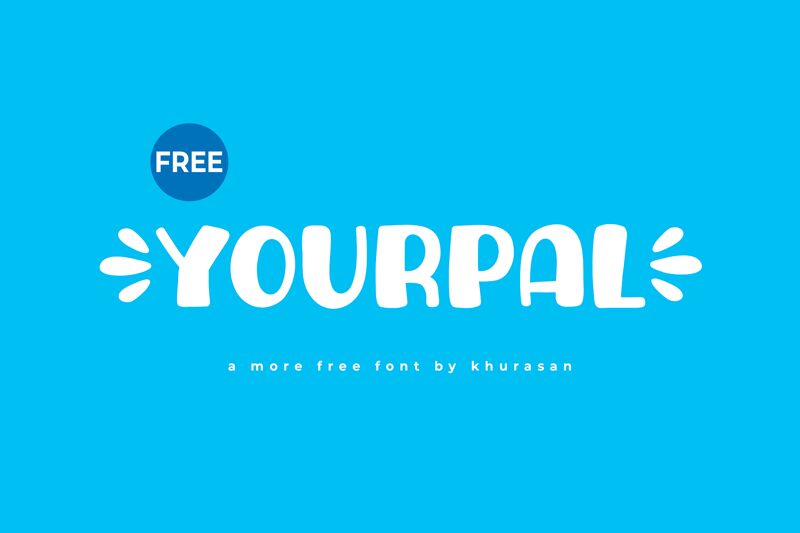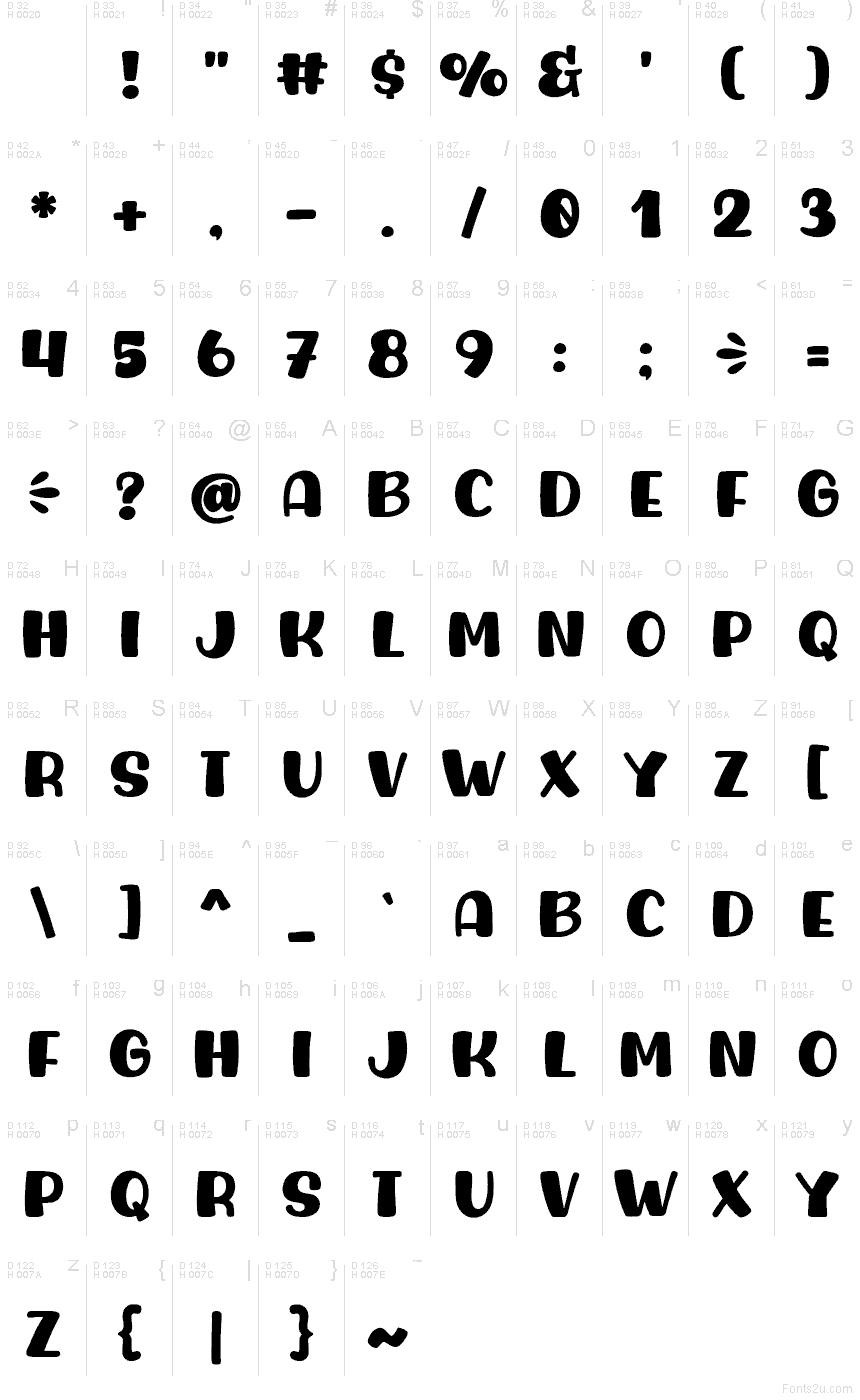
Yourpal
Yourpal font by Khurasan is a free cartoon display typeface with bold, blobby letters that feel like they’ve been cut from soft foam. The shapes are wide, bouncy, and slightly uneven in the best way, giving text a friendly, hand-crafted energy that’s easy to read at a glance. Its chunky forms hold up beautifully at large sizes, where every curve and swell feels warm and approachable.
Using Yourpal, this free font shines on kids’ book covers, birthday invitations, toy packaging, playful logos, classroom posters, and social media graphics. It’s also a natural fit for comic-style headers and cheerful YouTube thumbnails that need instant personality. Pair this font with a clean, light-weight sans serif for body text to keep the overall look bright, fun, and balanced.